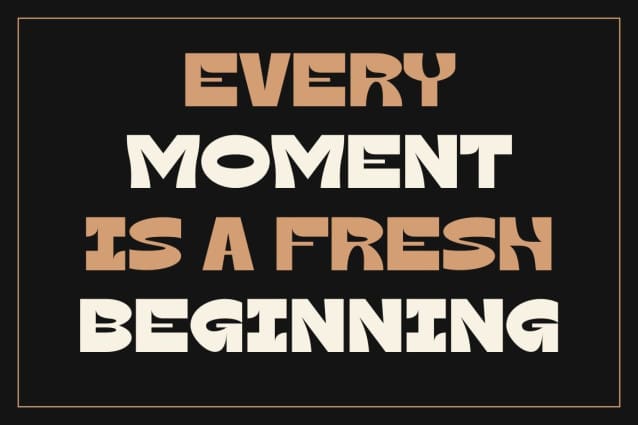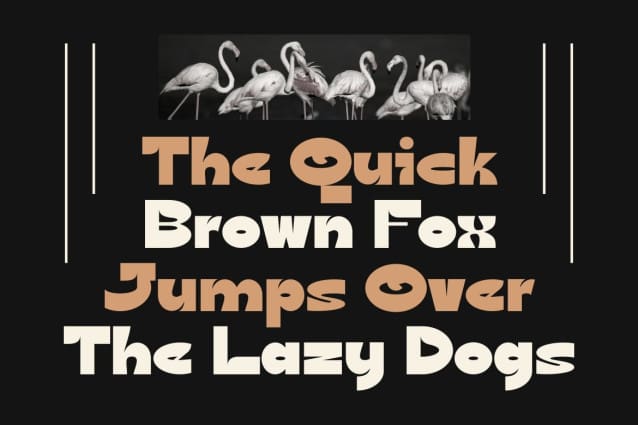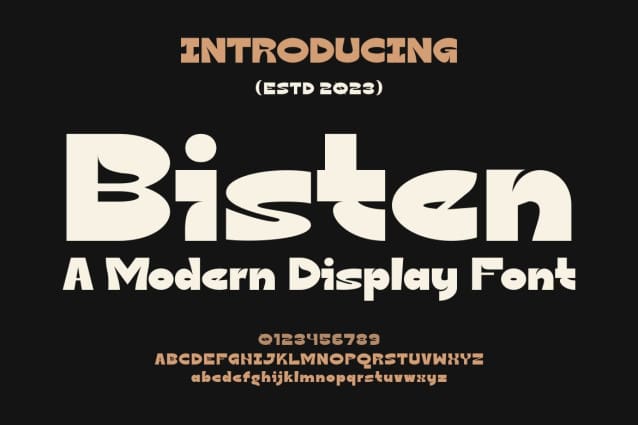
Bisten Display Font
Bisten Display Font – Modern Font is a bold and authentic display font. The font is suitable for all branding projects like logo, t-shirt printing, products and many more. It stands out in a wide range of contexts.